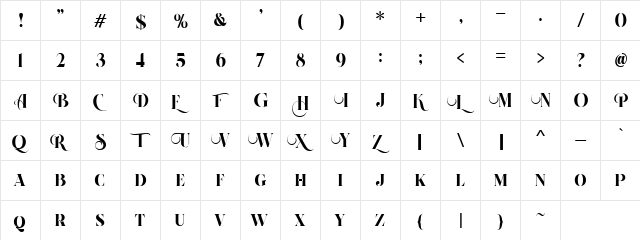
Beautiful Roses Regular
Design Context for Beautiful Roses Typeface
Beautiful Roses is a composed and adaptable typeface that performs quietly and consistently across a wide range of design contexts.